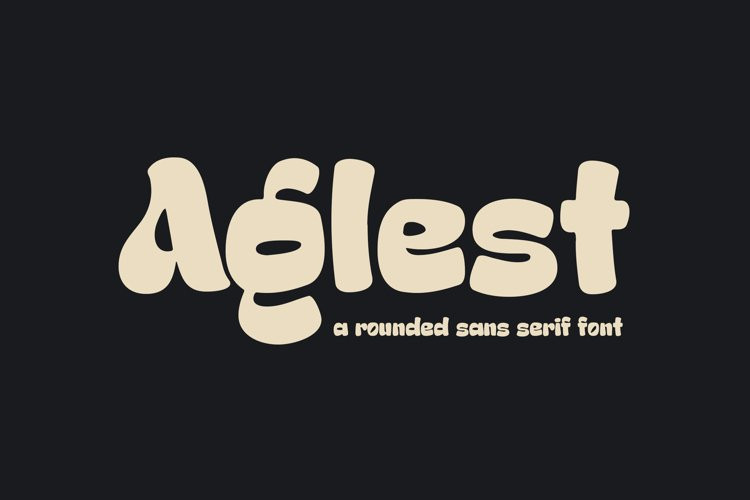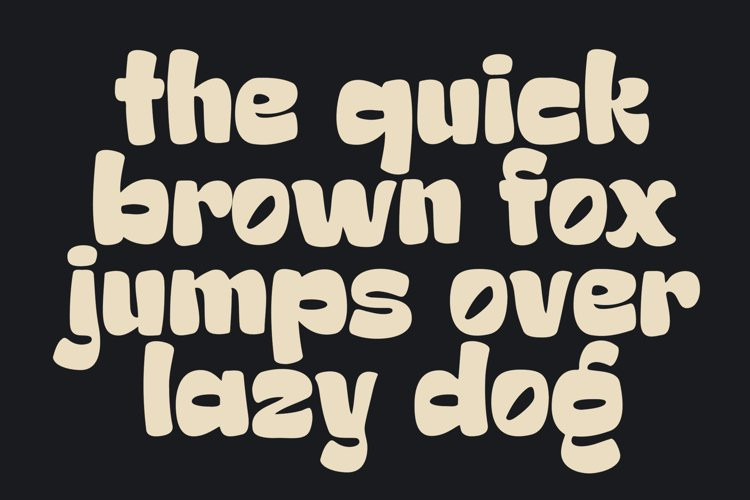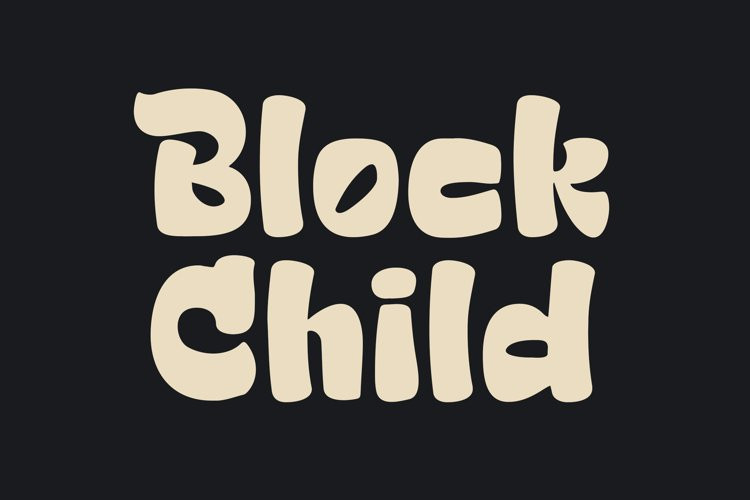
Aglest Font
Aglest FontAglest a Rounded Sans Serif Font, Inspiring from vintage playful style typography. This font is perfect for a design that makes it more attractive and playful. made with a very good level of aesthetics making this font suitable for book cover, poster, packging, merchandise, logotype and much more.